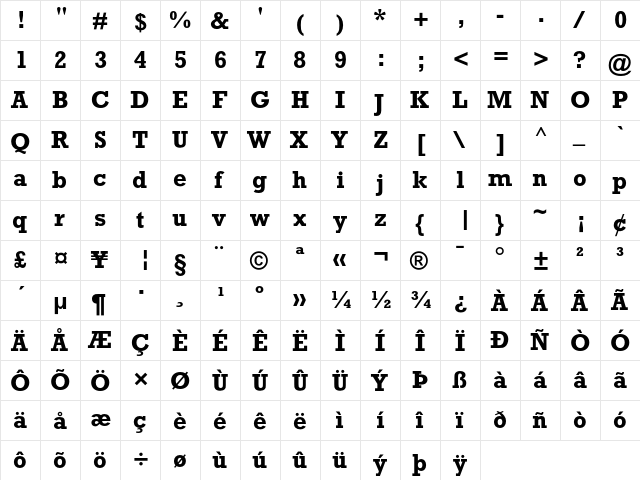
Rockwell Bold
Design Context for Rockwell Typeface
Rockwell offers clean, dependable letterforms without strong stylistic allegiance, making it a practical choice for designers who need flexibility. Its bold stroke weight gives it real presence on the page.
Pro Tip: Pair Rockwell with a font of contrasting weight or personality to build a more expressive typographic hierarchy.